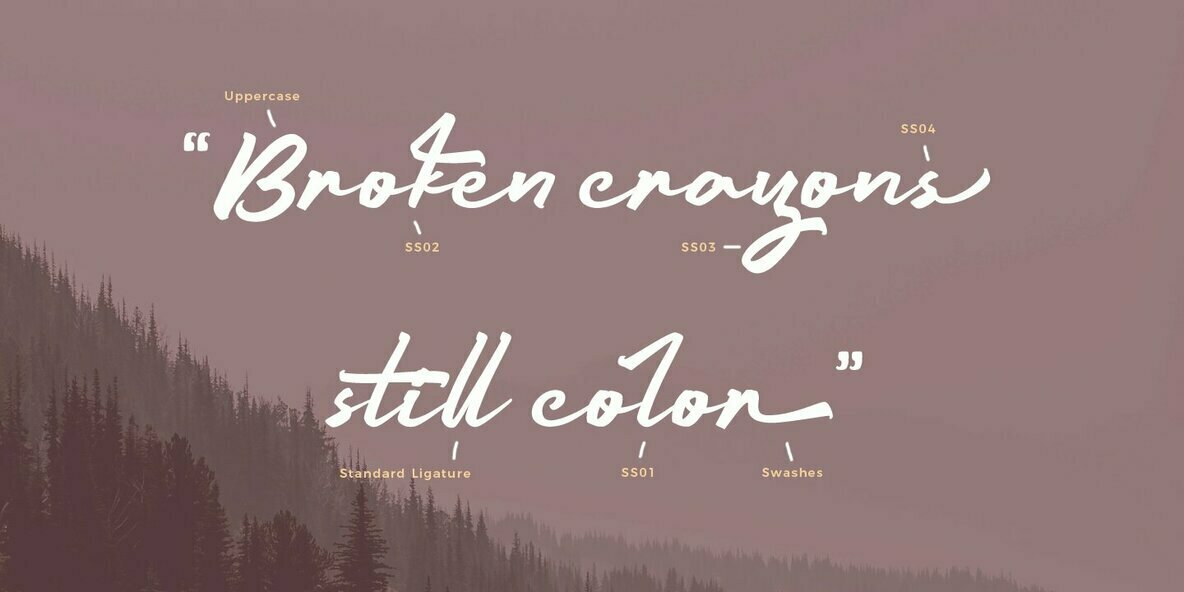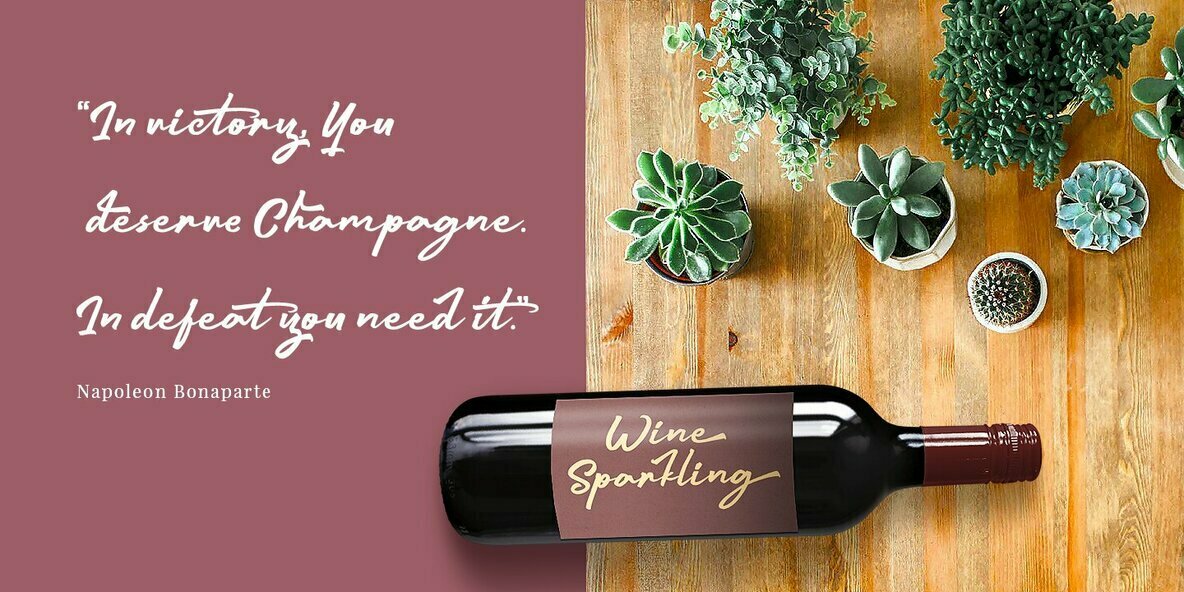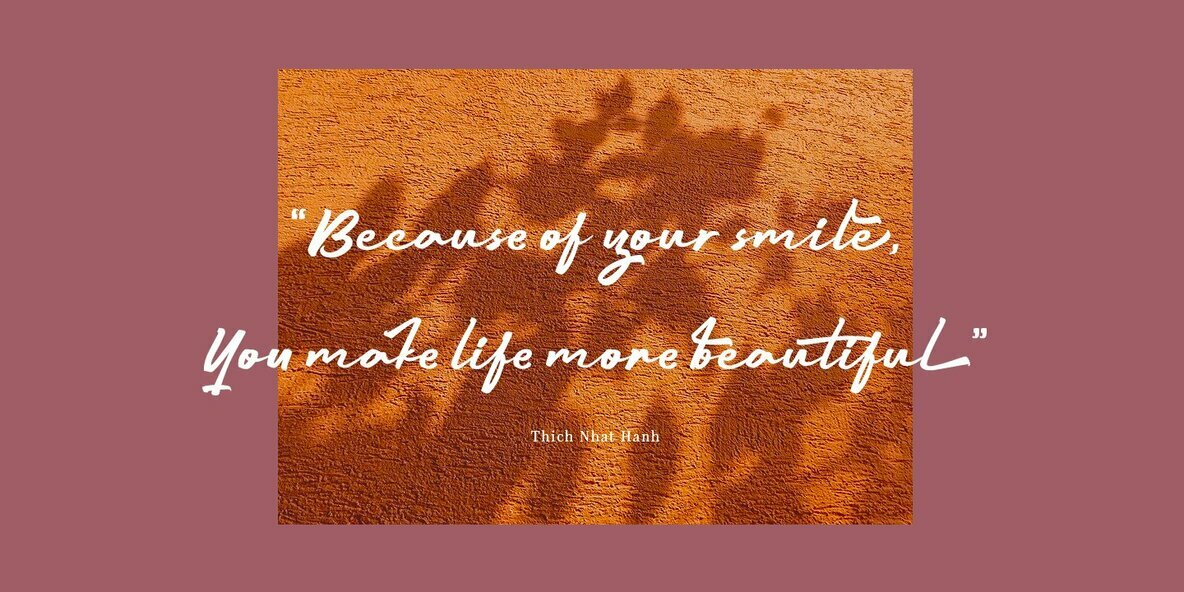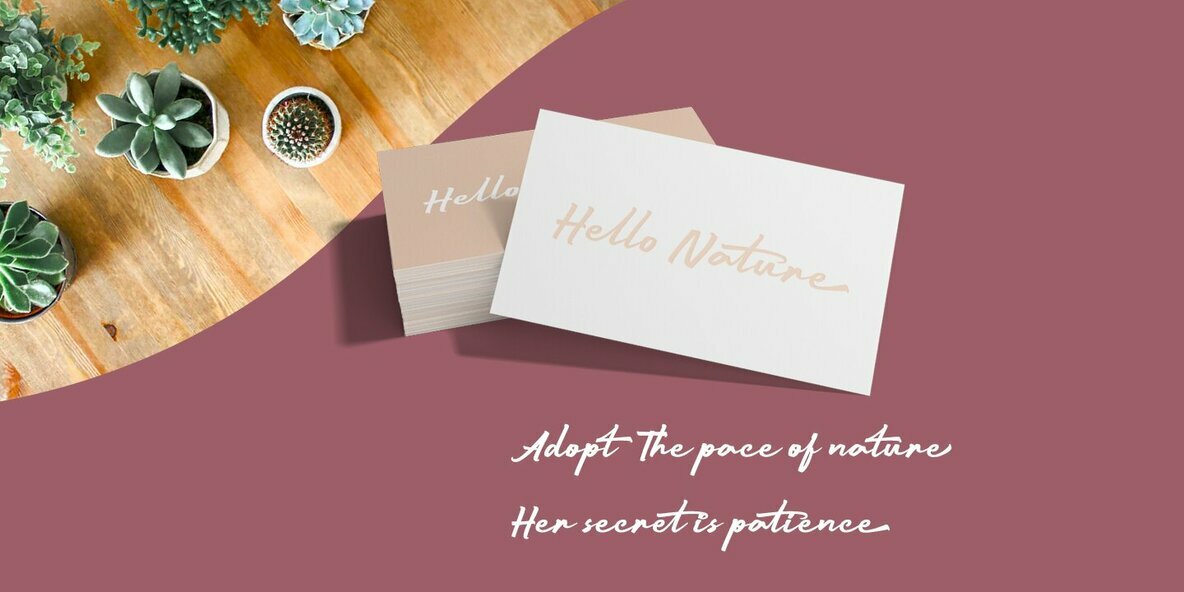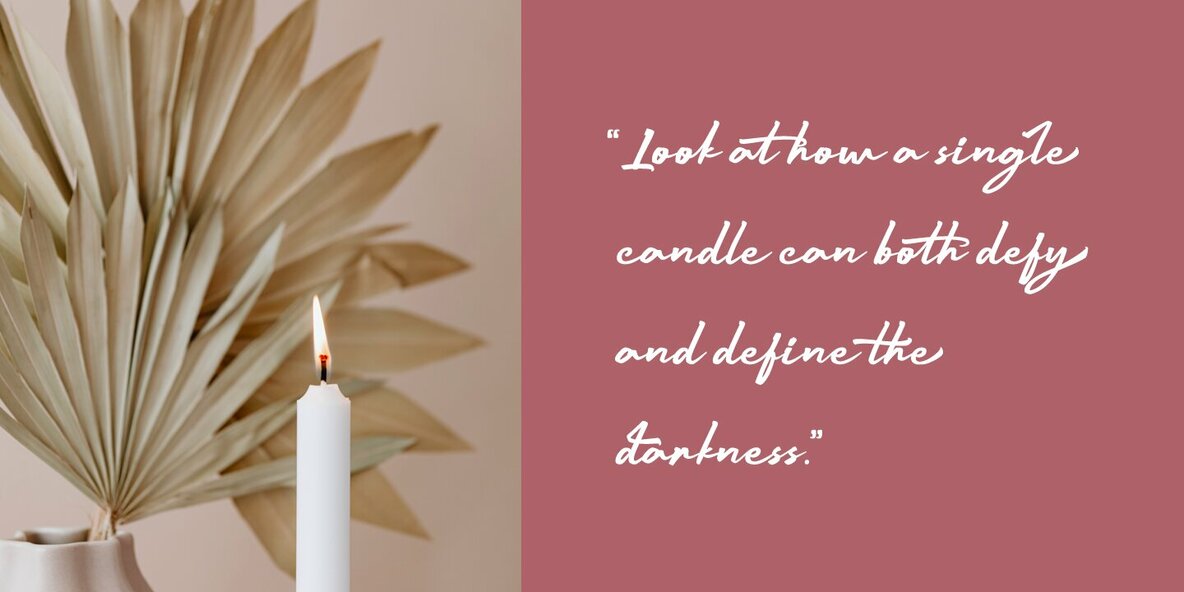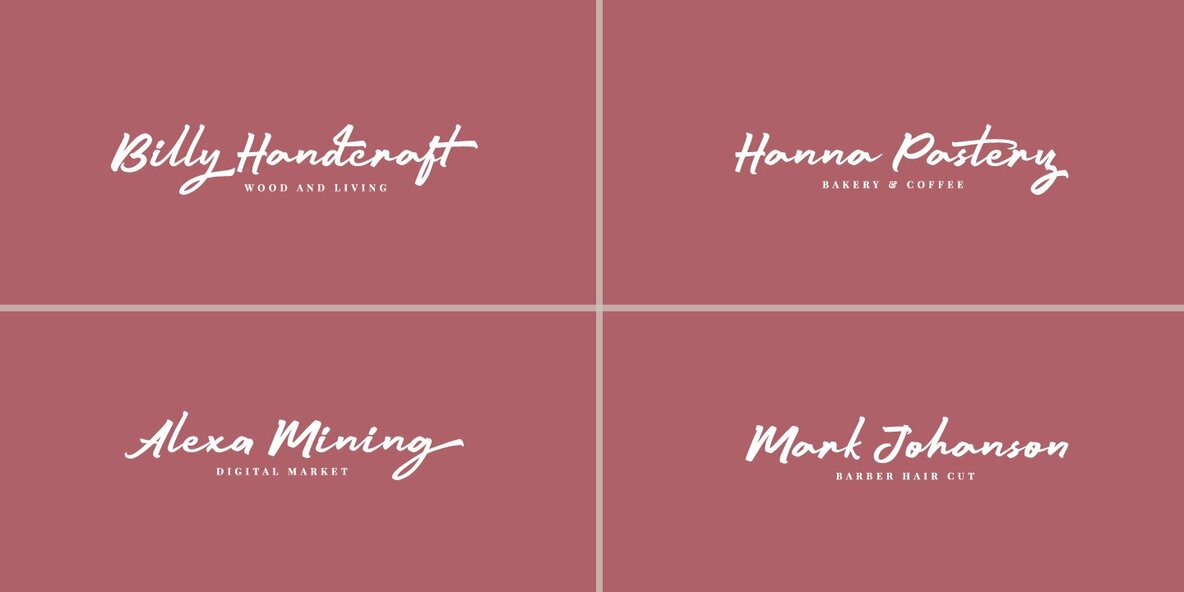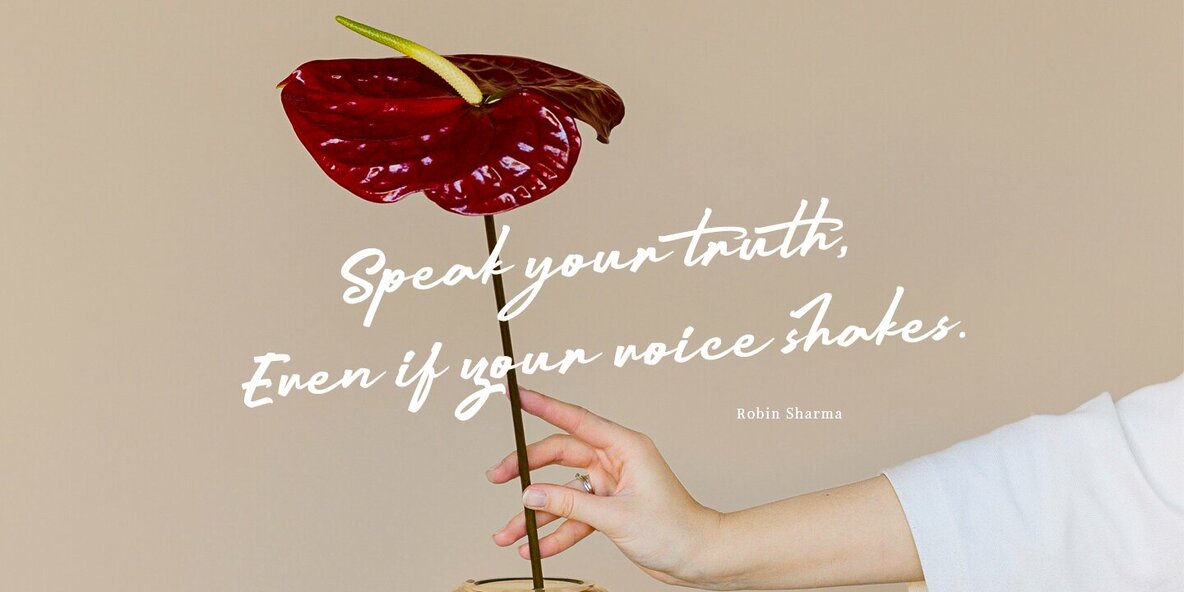
Mount Light Font
Mount Light
Mount Light captures the essence of genuine calligraphy in its beautifully crafted script style. This font is perfect for a wide range of creative projects, from wedding invitations to logo design, making it an ideal choice for designers seeking a touch of elegance and authenticity.Mount Light: Authentic Calligraphy Script Font
Embrace the art of calligraphy with Mount Light, an exquisite choice for creative professionals.